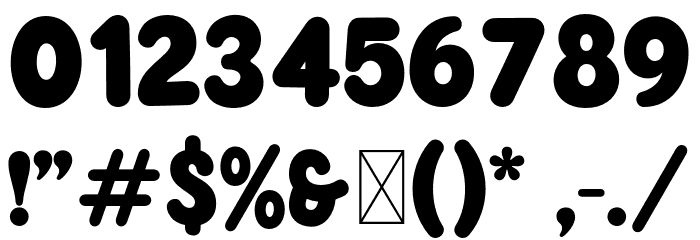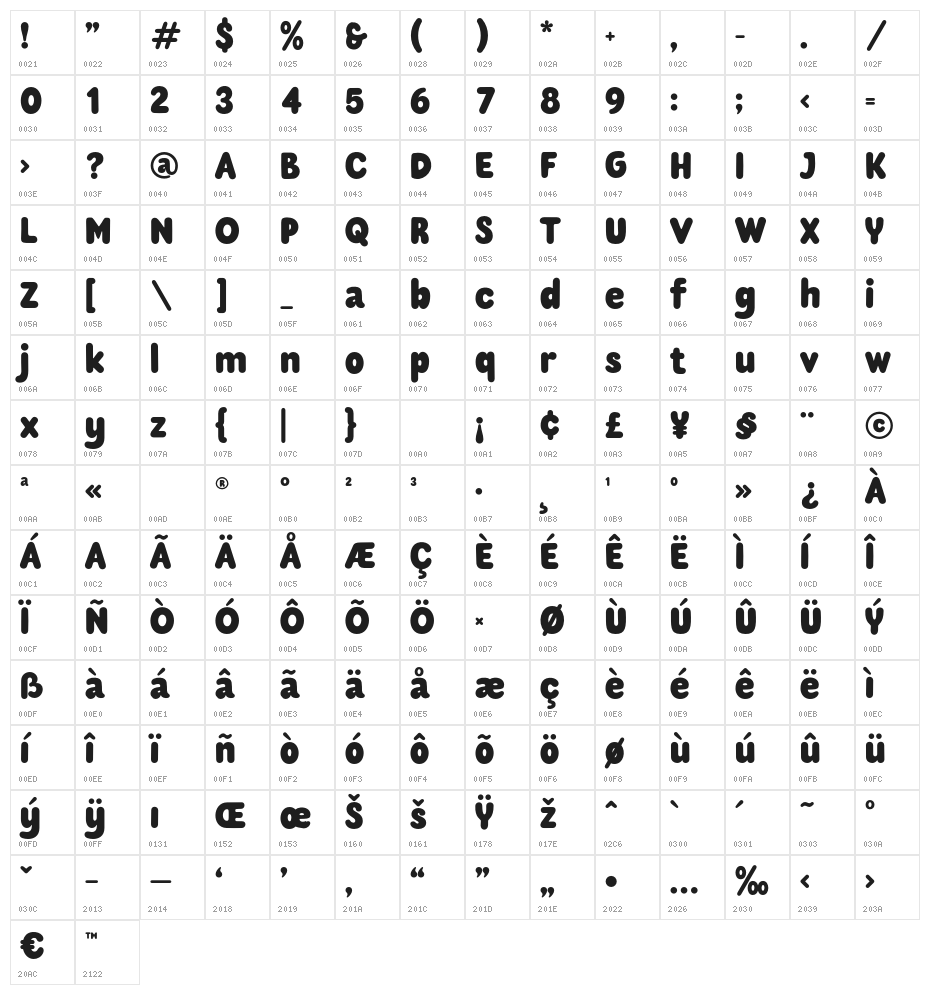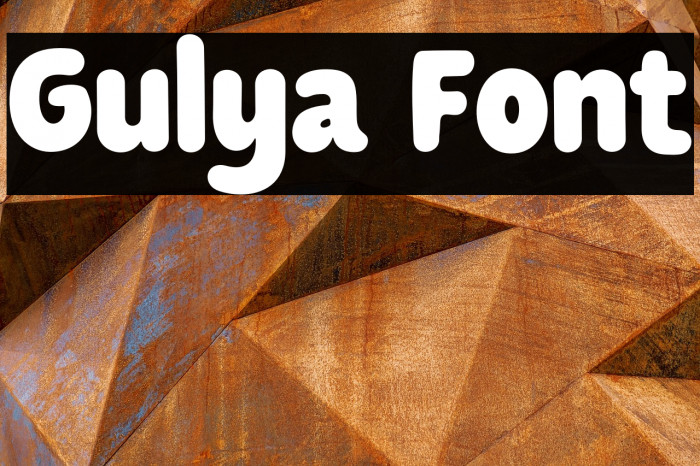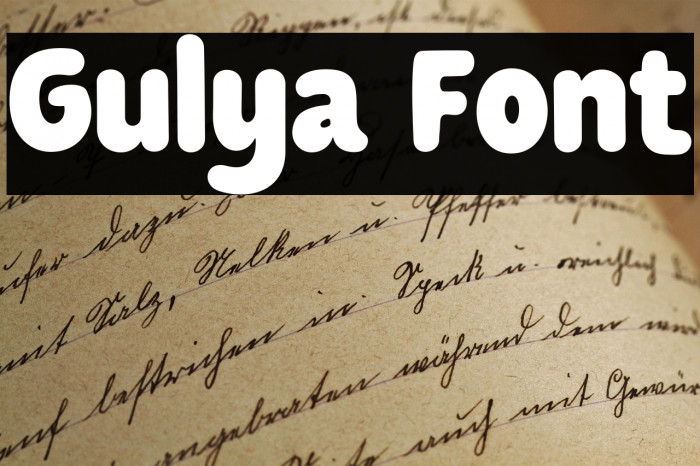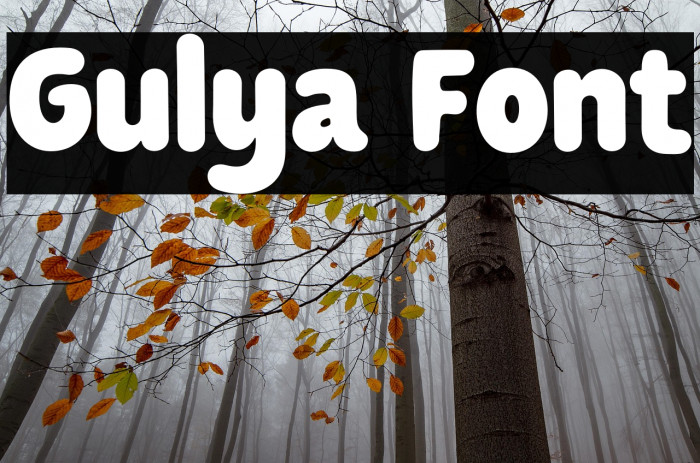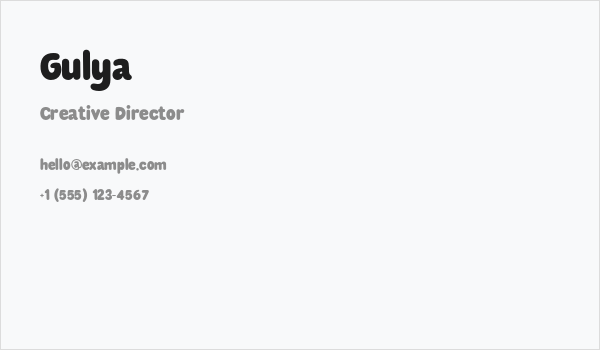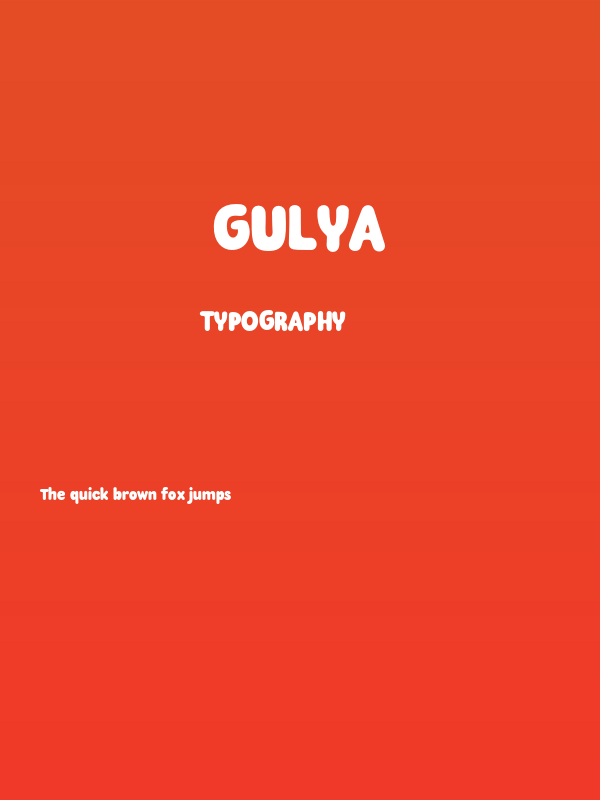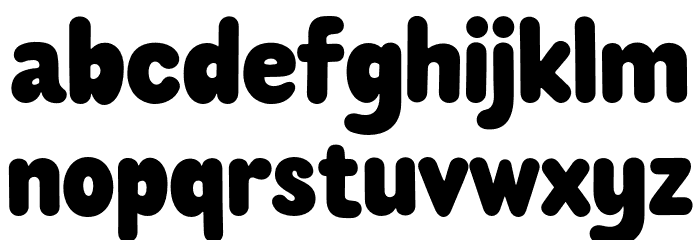
Gulya Font
Gulya Description
This font features a bold and playful style with rounded edges and a bubbly appearance. The characters are thick and uniform, giving a sense of friendliness and approachability. The uppercase and lowercase letters maintain a consistent weight, contributing to a cohesive look. Numbers and special characters are equally bold, ensuring readability and emphasis. The overall design is modern and fun, making it suitable for creative and informal applications. Its distinct style can capture attention and convey a sense of joy and energy.
| Overall Style | Playful, Modern |
| Proposed Projects | Ideal for children's books, playful branding, posters, and social media graphics. |